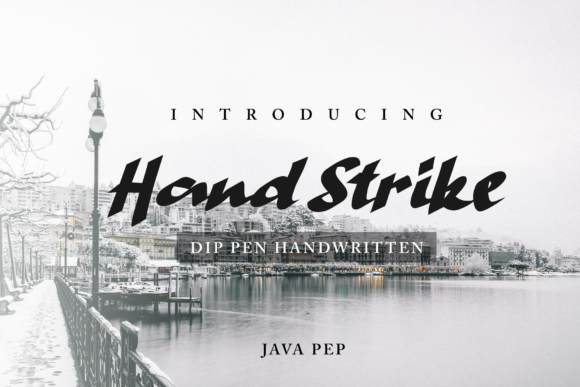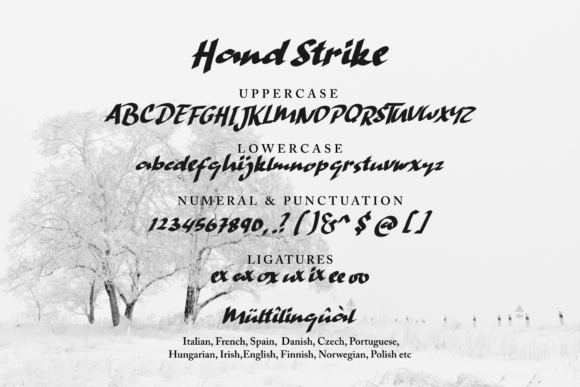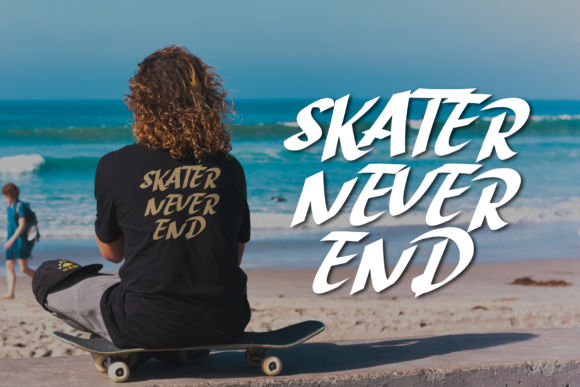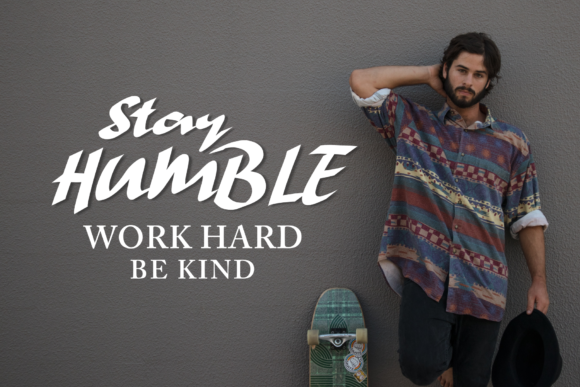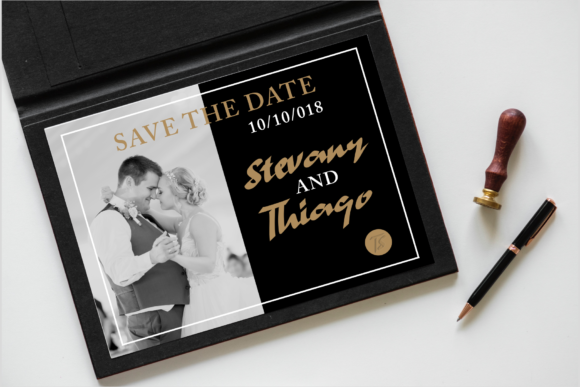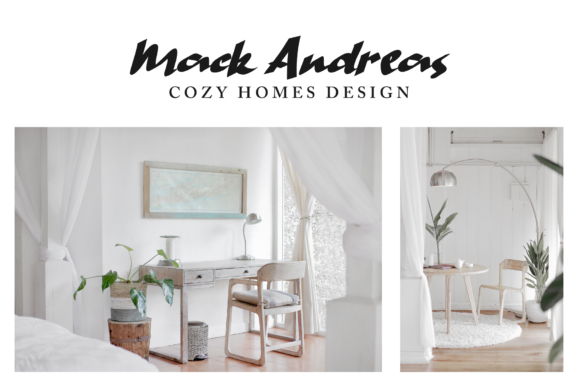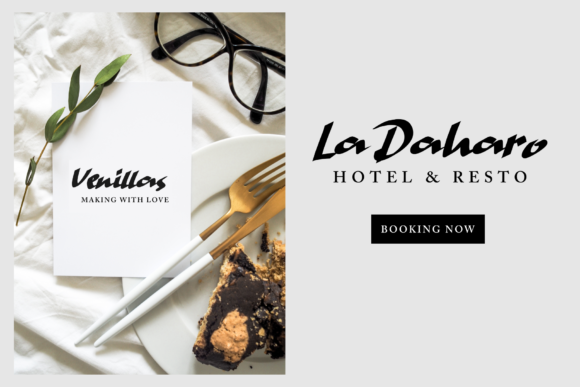
Hand Strike Font
About Hand Strike Font
The Hand Strike is a handwritten typeface. It has masculine and bold characters which will give your design a striking look. Perfect for designs that need to stand out!